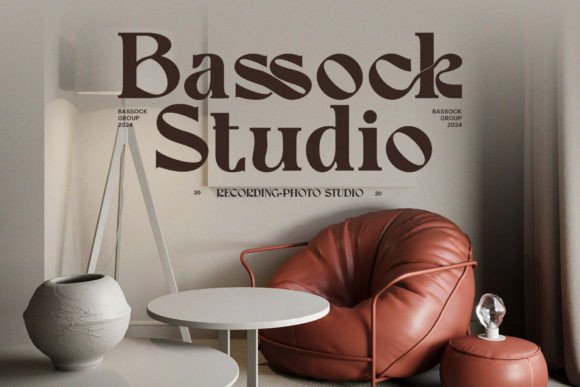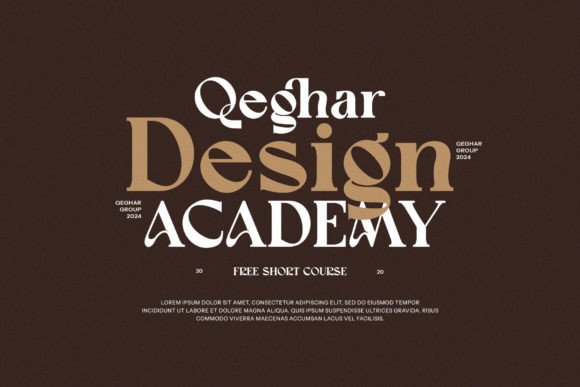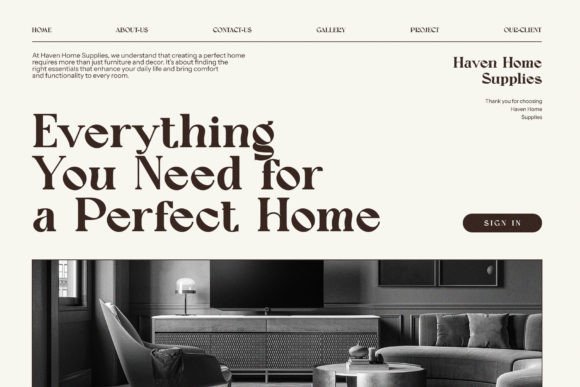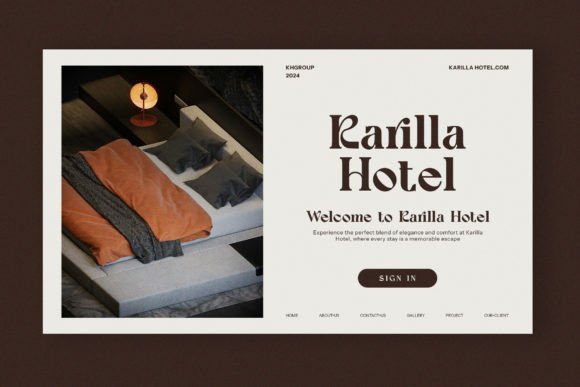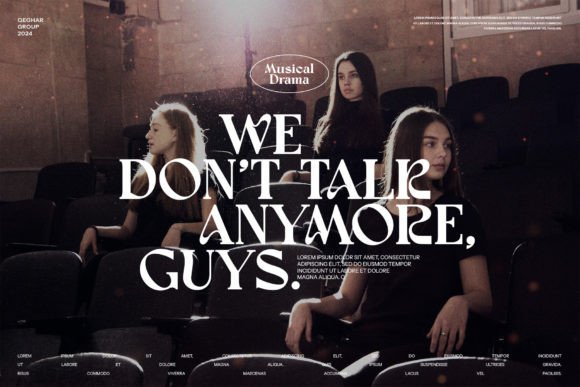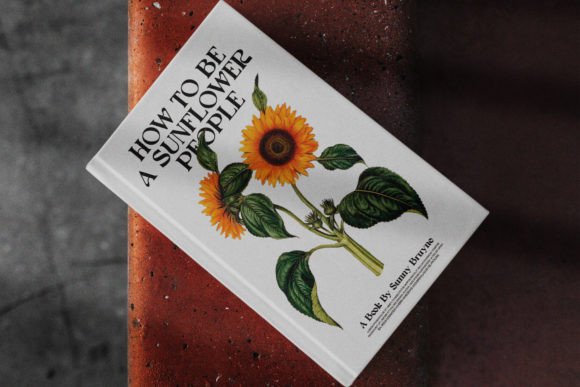
Introduction to Mickoo Font
Do you remember that moment when you finally find the perfect font for your creative project? The one that makes your design stand out and elevates your brand to the next level? For designers, finding that elusive font can be a game-changer. And, if you’re looking for a font that exudes elegance and luxury, you’re in luck. Say hello to the Mickoo Font, a stunning serif font designed to make your designs shine.
With its beautiful ligatures and alternate options, the Mickoo Font is a treasure trove of creative possibilities. Whether you’re working on a high-end branding project, crafting a social media post, or designing a wedding invitation, this font is the perfect companion. Its versatility and high quality make it an invaluable resource for designers, and with a free download option, it’s more accessible than ever.
Key Features of Mickoo Font
- High-quality design resource for creative projects, offering a unique and stylish aesthetic.
- Designed with a focus on creativity and originality, making it an ideal choice for designers seeking a distinctive look.
Honest Review: Mickoo Font
I recently came across the Mickoo Font while searching for a unique design resource for a creative project. As a designer, I’m always on the lookout for high-quality fonts that can add an extra layer of professionalism to my work.
The Mickoo Font did not disappoint. I downloaded the font for free, and was impressed by its clarity and legibility. The transparent background made it easy to use in various design contexts.
- High-quality design: The Mickoo Font is well-crafted and visually appealing.
- ⚠️ Limited character set: The Mickoo Font only includes a limited set of characters, which may not be suitable for all design projects.
- ⚠️ Not suitable for small text: The font is best used for headings and titles, as it can become difficult to read in smaller font sizes.
Overall, I was impressed by the Mickoo Font’s quality and versatility. While it has some limitations, it’s a great addition to any designer’s toolkit.
Mickoo Font
Tips for Getting the Most Out of Mickoo Font
To maximize the use of Mickoo Font, consider the following tips:
Experiment with different font sizes and colors to create visually appealing text elements.
Combine Mickoo Font with other design resources to create a unique and creative visual identity.
Mickoo Font is ideal for various creative projects, including:
Logo designs and branding materials.
Infographics and data visualizations.
Marketing materials, such as brochures and flyers.